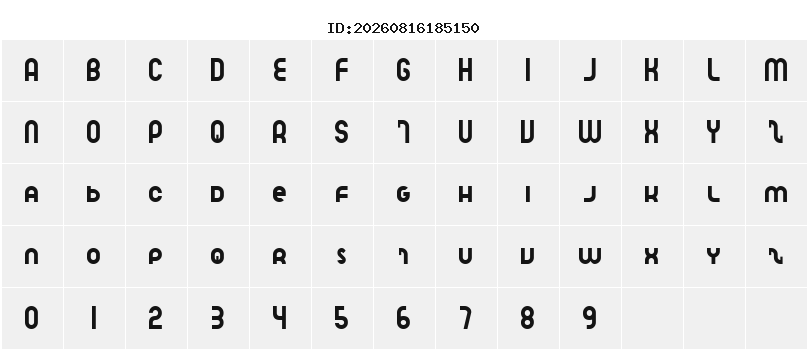
• Font Name: Speedlearn
• Full Font Name: Speedlearn Normal
About Speedlearn.ttf
Speedlearn.ttf is a modern, elegant sans-serif font designed for ultimate readability and visual harmony. Perfect for branding, headlines, web design, and print materials.